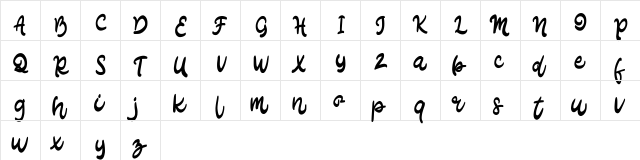
Alrte FREE Regular
Design Context for Alrte FREE Typeface
Alrte FREE is a composed and adaptable typeface that performs quietly and consistently across a wide range of design contexts.